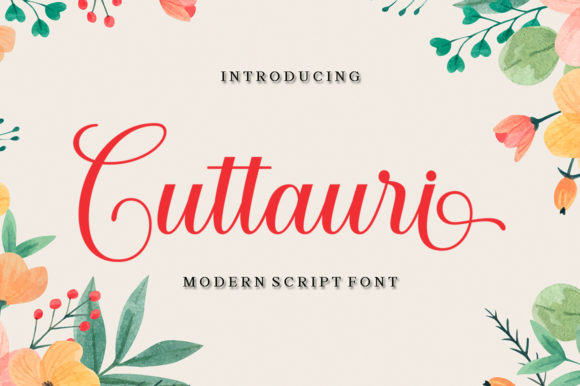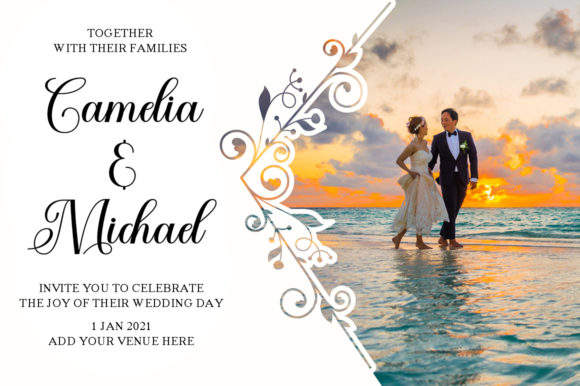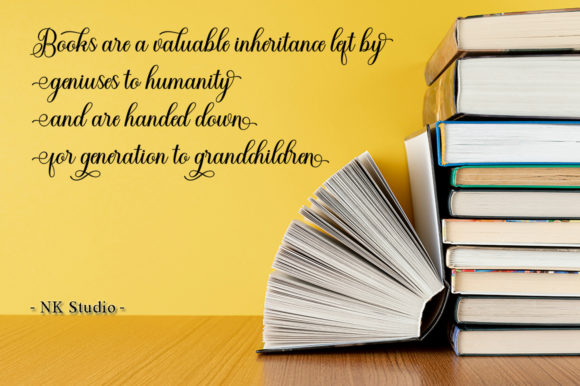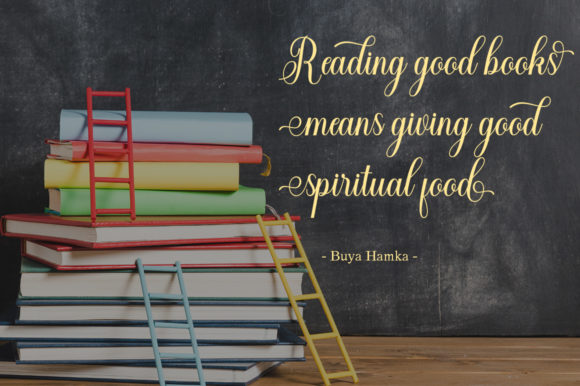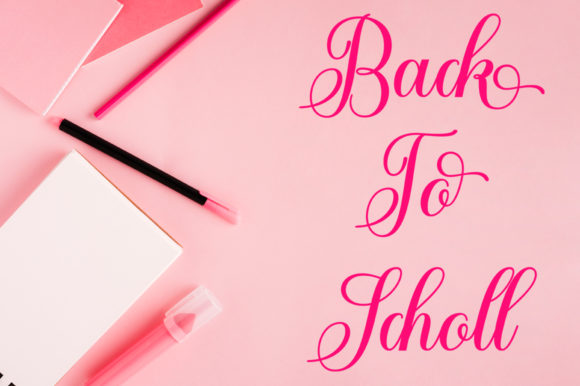
Cuttauri Font
About Cuttauri Font
Cuttauri is a lovely modern script, with an authentic feel. Use it to create gorgeous wedding invitations, beautiful stationary art, eye-catching social media posts, and cute greeting cards.
This font is PUA encoded which means you can access all of the glyphs and swashes with ease! It also features a variety of special features including alternate glyphs and ligatures.